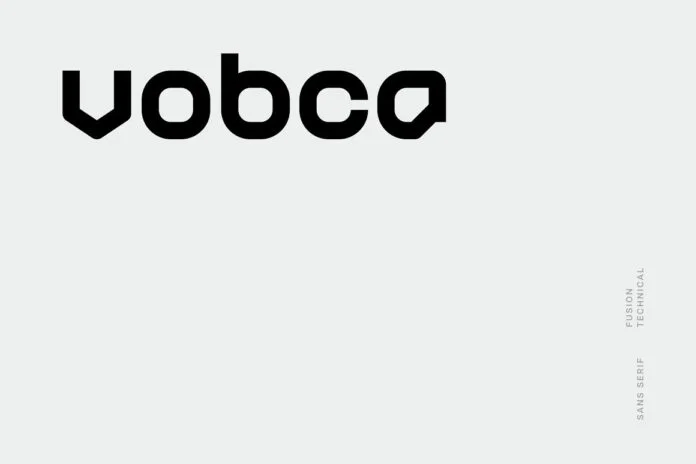
Vobca Font
Vobca Font is perfect for modern tech branding, sleek interface design, contemporary corporate logos, minimalist packaging, progressive web typography, innovative app interfaces, clean business presentations, sophisticated digital campaigns, streamlined product design, and cutting-edge professional materials.
Vobca Font is exciting because it embodies contemporary minimalism and technological precision through clean, geometric letterforms that convey innovation, efficiency, and modern sophistication with understated power. This precisely designed typeface combines digital-age aesthetics with professional functionality, making it perfect for brands that want to communicate technological advancement, clean efficiency, and contemporary excellence that resonates with modern audiences.
The Vobca Font family includes streamlined weights with tech-inspired character styling, featuring geometric design elements and contemporary variations. The font showcases modern design details, digitally-optimized proportions, and sleek character characteristics that create a comprehensive typographic system for technology and professional brand applications.
Vobca Font Free Download offers designers access to premium contemporary typography that brings authentic modern character to cutting-edge design projects. This expertly crafted typeface has been developed to capture the essence of digital innovation and contemporary professionalism while ensuring optimal performance in modern technological applications. The font's clean character and minimalist appeal make it ideal for technology companies and progressive organizations.
The technological sophistication of Vobca Font makes it an invaluable tool for tech startups, digital agencies, and modern service providers that need typography capable of communicating innovation and contemporary excellence. The font's sleek character helps establish immediate associations with efficiency, technological advancement, and modern professionalism that appeal to forward-thinking clients seeking cutting-edge solutions and contemporary services.
Software companies, design agencies, and tech-focused businesses consistently choose Vobca Font for its ability to convey technological sophistication and contemporary minimalism through typography. The font excels in applications where establishing modern credibility and innovative positioning are essential to brand positioning, making it particularly effective for technology services, digital solutions, and contemporary brands targeting tech-savvy consumers.
This font's comprehensive character set includes technologically-styled letterforms, modern numerals, sleek punctuation marks, and contemporary symbols that support authentic modern typography composition. The consistent minimalist styling maintains the technological sophistication theme throughout all characters while ensuring professional readability across all tech and contemporary design projects requiring Vobca Font Free Download functionality.